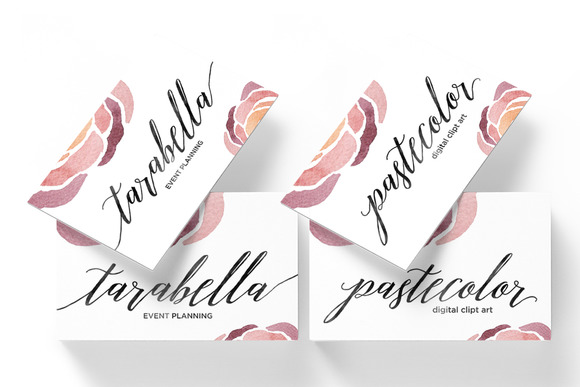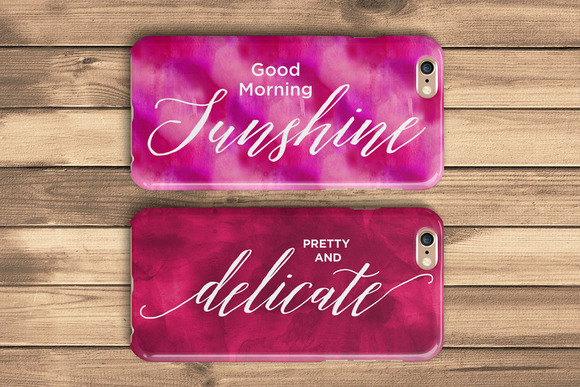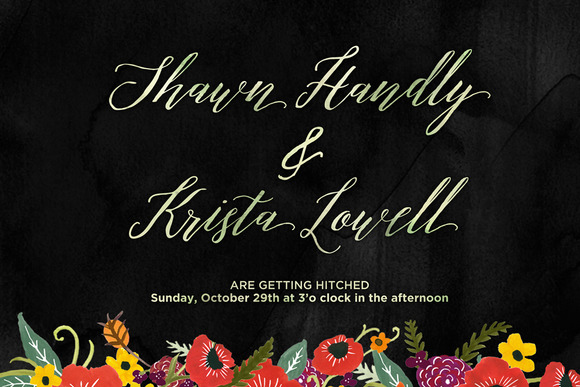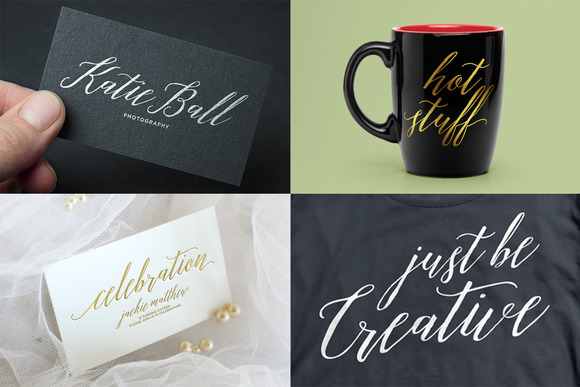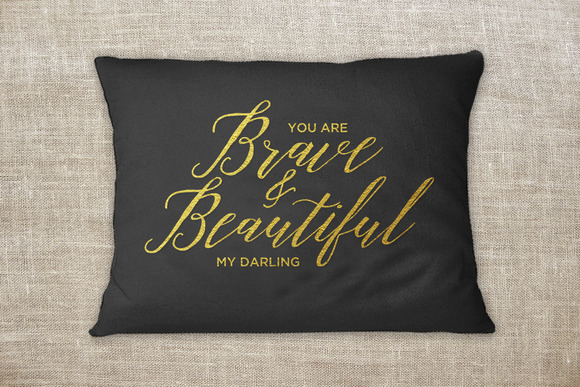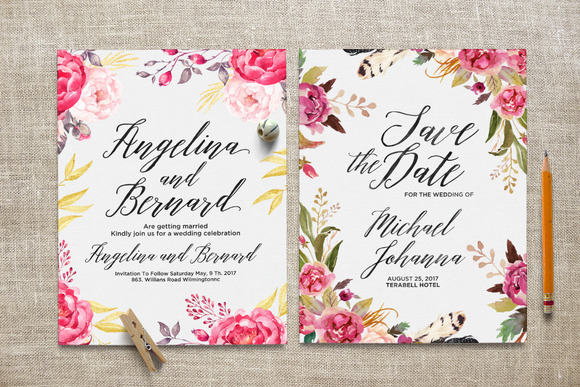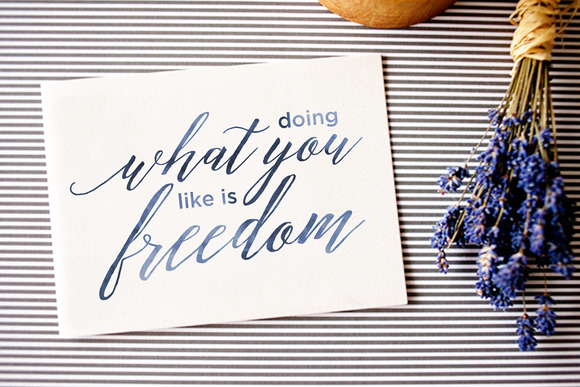
Michaela Script Font
Michaela Script is a modern hand-brushed script. It is organic and has some fun with the dancing baselines. It also has different alternates and swashes to the beginning and ends of all lowercase.